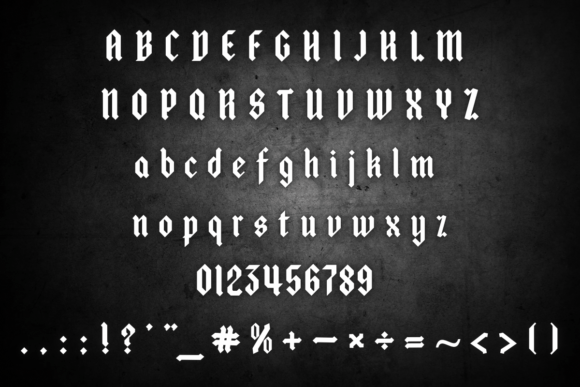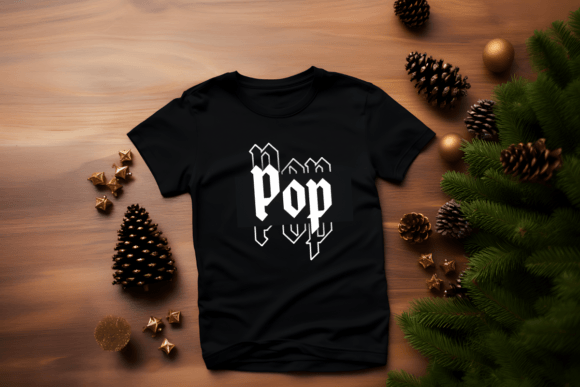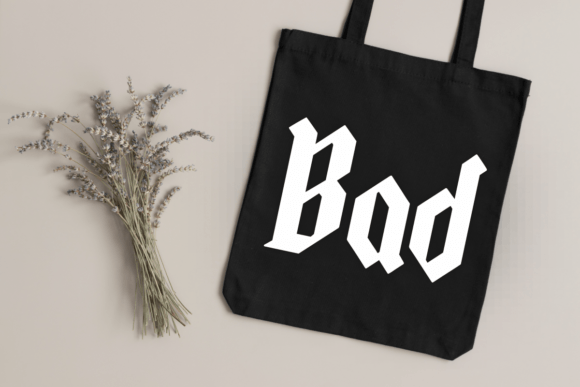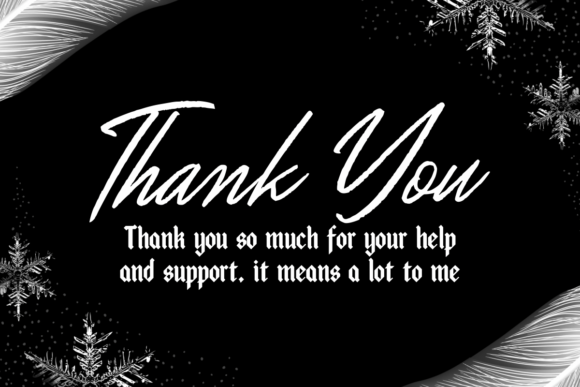
Introduction to Old English Font
You know that feeling when you stumble upon the perfect design resource, and suddenly a creative project comes to life in your mind? For me, that moment happened when I discovered the timeless charm of the Old English Font. As I delved deeper into its intricate details and ornate flair, I realized why designers love it so much – its unique aesthetic adds a touch of sophistication and elegance to any design.
Key Features of Old English Font
- High-quality, intricately designed font with a medieval feel, perfect for creative projects and historical designs.
- Unique characteristics include ornate details, gothic-inspired lettering, and a nostalgic, vintage aesthetic.
Honest Review: Old English Font
I recently stumbled upon the Old English Font, and I’m excited to share my thoughts on this design resource. The font is perfect for adding a touch of vintage flair to any creative project.
One of the standout features of the Old English Font is its versatility. You can use it for a variety of design projects, from logos to posters, and even for creating a transparent background effect.
However, there are some limitations to consider: ⚠️ The font may not be suitable for all types of designs, and ⚠️ It may not be as polished as some other high-end fonts.
- Perfect for adding a vintage touch to creative projects
- Wide range of font styles
- Not suitable for all types of designs
- May not be as polished as other high-end fonts
How to Use Old English Font
The Old English Font is a high-quality design resource perfect for creative projects. This font adds a touch of elegance and sophistication to any design, making it a valuable addition to your design toolkit.
Here are some tips for getting the most out of the Old English Font:
Use the font in combination with other high-quality design elements to create a cohesive and sophisticated design.
Experiment with different font sizes and styles to add visual interest to your design.
Use the font to create a sense of hierarchy in your design, by using it to emphasize important headings and titles.
The Old English Font is commonly used in a variety of design projects, including:
Business cards and brochures
Menus and signage
Book covers and book titles